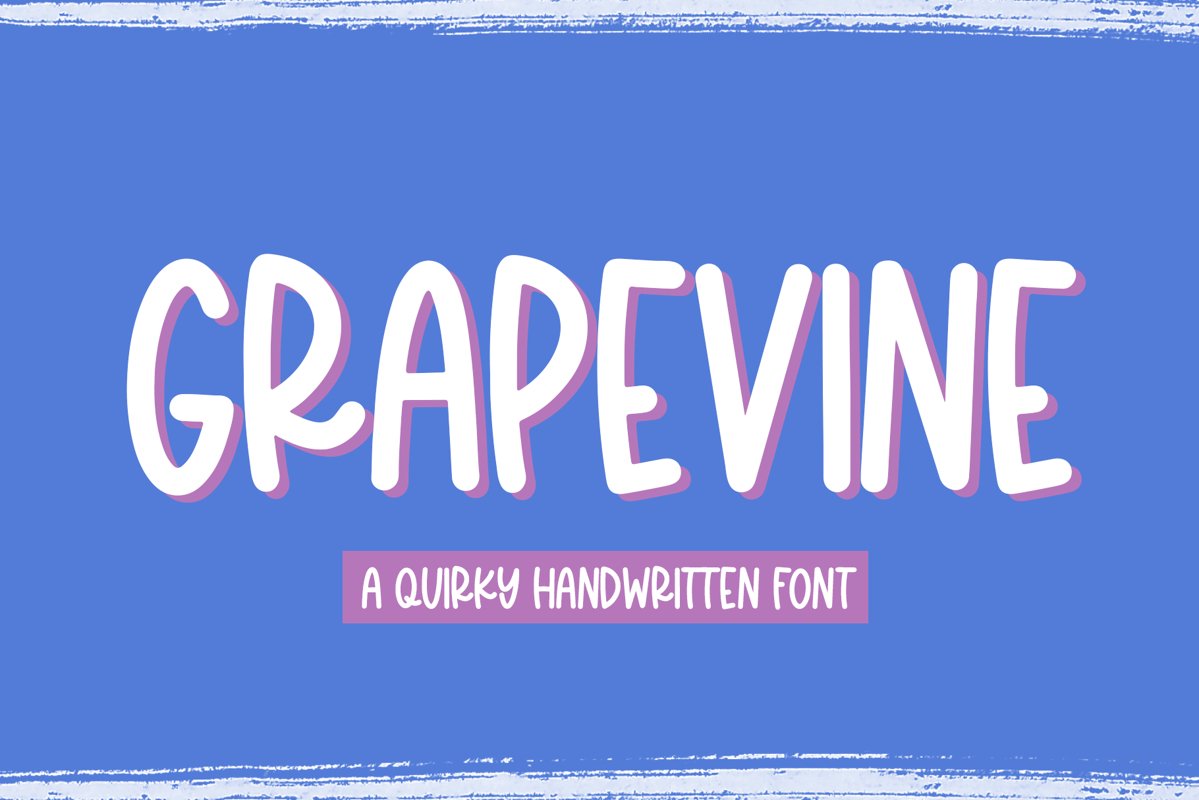
Grapevine - A Fun Handwritten Font
Grapevine is a fun and quirky handwritten font!
This font is perfect for quotes, shirt designs, websites, branding, children's designs, svg designs, blogs, logos, invitations and more!